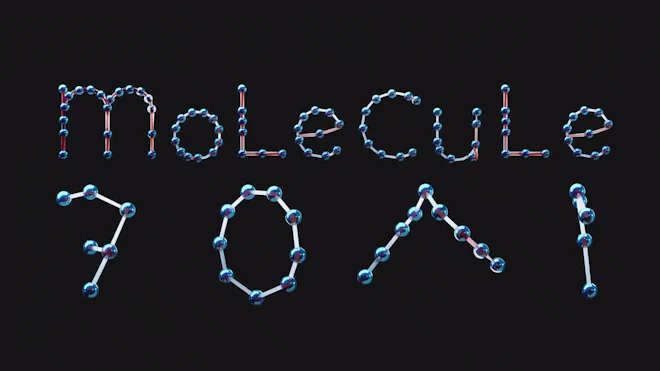
This stock motion graphics video pack includes 62 different clips of 3D molecule font typefaces - uppercase letters, lowercase letters, and numbers on a transparent alpha channel.